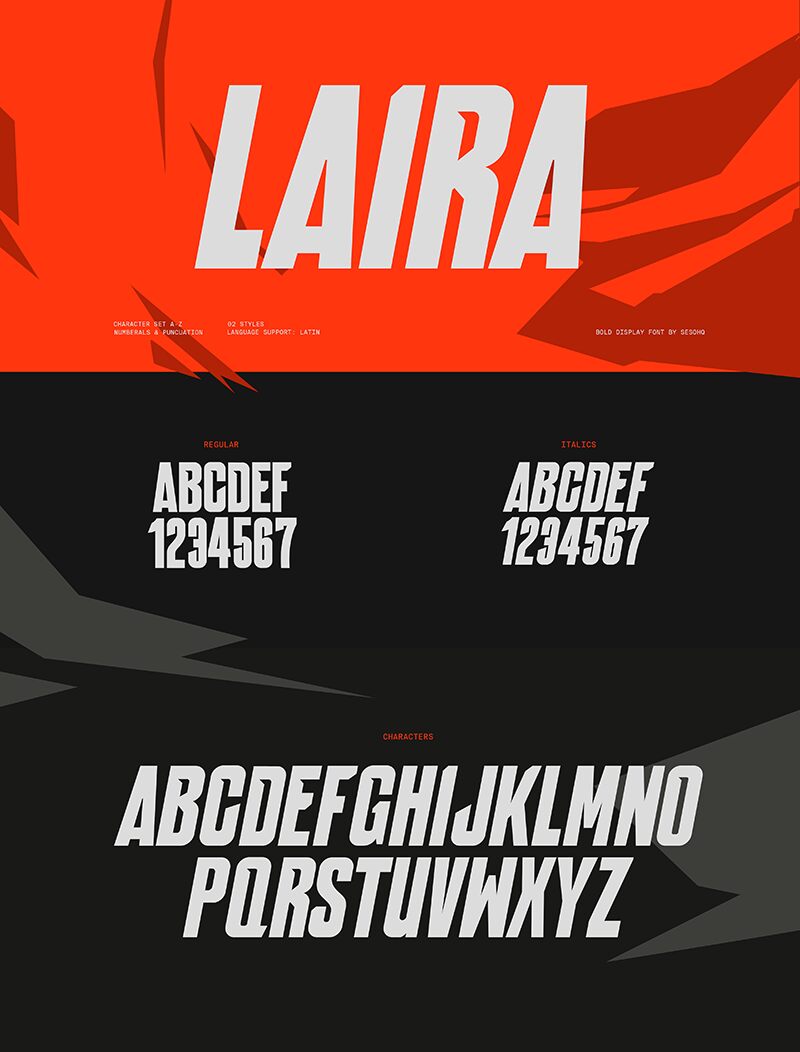
Laira Italic
Laira Italic font by Sesohq is a sleek, geometric, modern sans-serif typeface designed with the buzzing culture of Esports in mind. This bold display font is characterized by its angular and assertive appearance that makes a strong statement through every character. It comes in a condensed width for an extra contemporary look across all designs.
Experiment freely with Laira on branding projects and packaging designs for gaming products and accessories. The versatile typeface can also suit social media posts, website headers, body texts, mobile app interfaces, stationery designs such as business cards as well as printed promotional material like brochures and event posters when paired correctly!